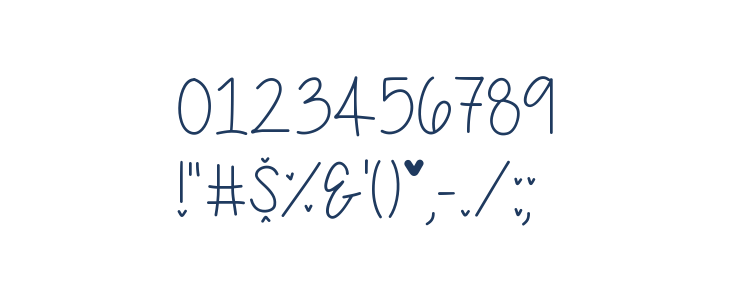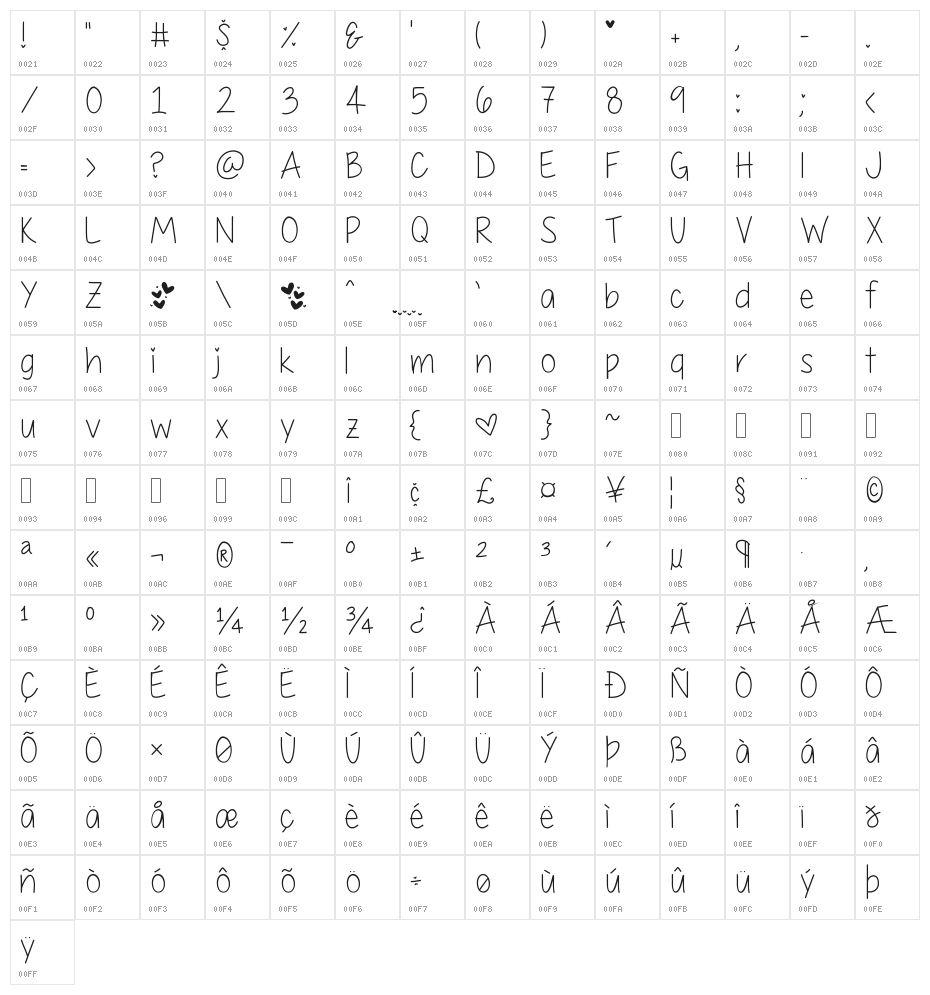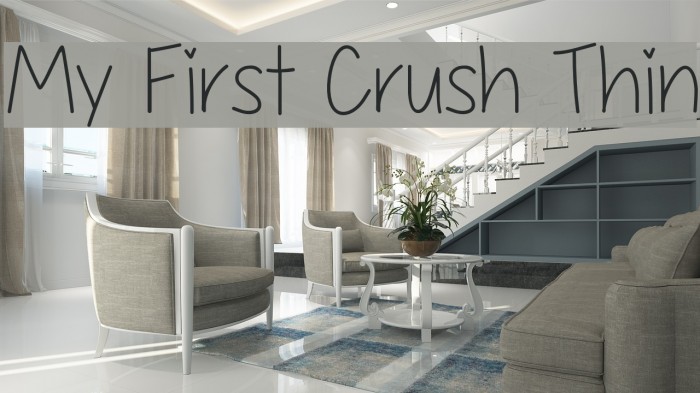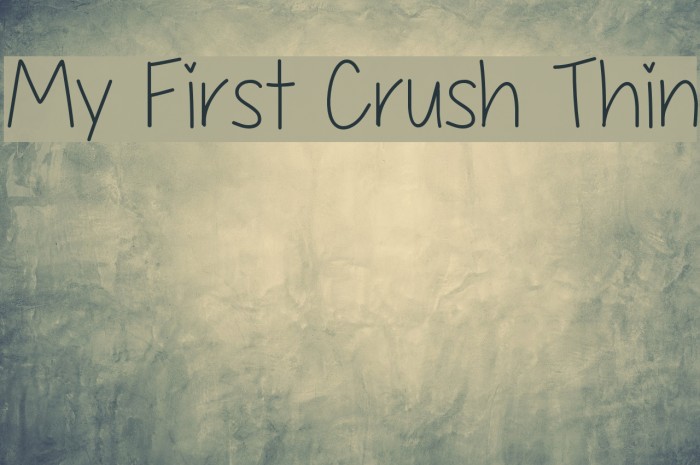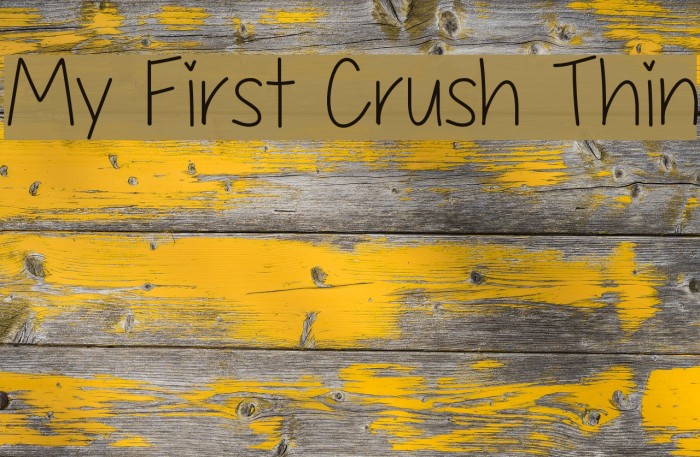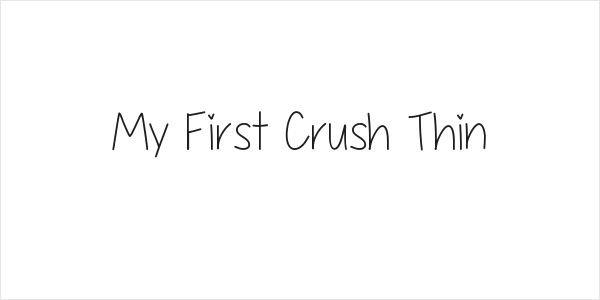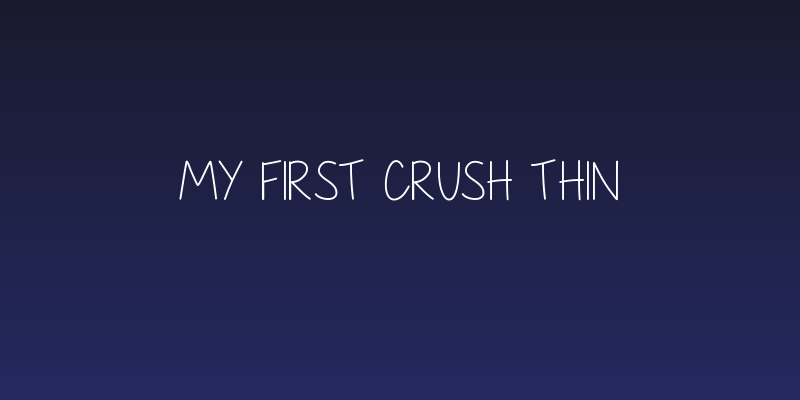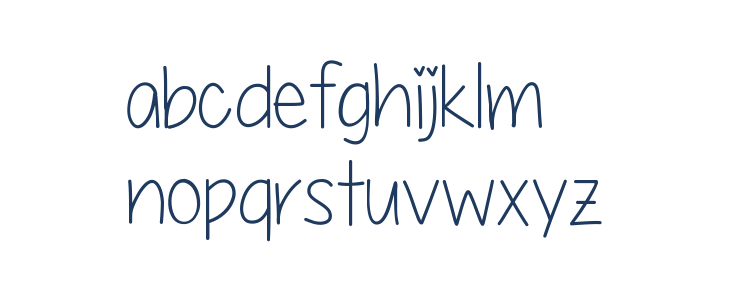
My First Crush Thin Font
My First Crush Thin Description
This font features a playful and whimsical design, characterized by its thin, hand-drawn appearance. The letters have a casual, informal style with slightly irregular strokes that add a personal touch. The uppercase and lowercase letters are well-balanced, maintaining a consistent height and width. The numerals and special characters follow the same playful aesthetic, making the font versatile for various creative projects. Its thin strokes and open forms give it a light and airy feel, perfect for conveying a sense of fun and creativity.
| Use Case | Headlines, Logos, Casual text |
| Proposed Projects | Ideal for children's books, greeting cards, playful branding, and casual invitations. |